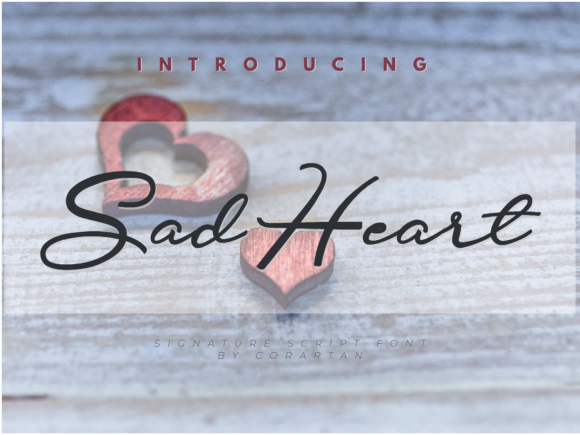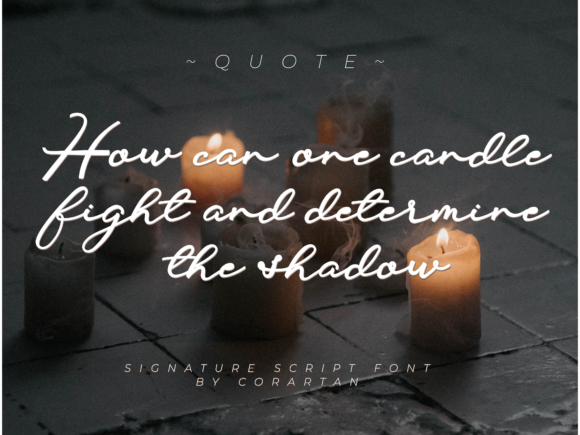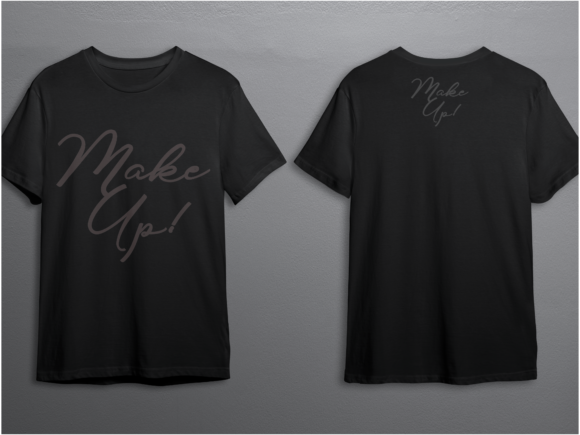
About Sad Heart Font
Sad Heart is a beautiful, flowing handwritten font with a unique feel and stunning impact. This font will add a spark of luxury to any design project you want to create!